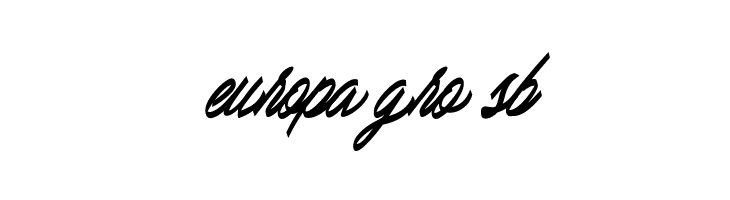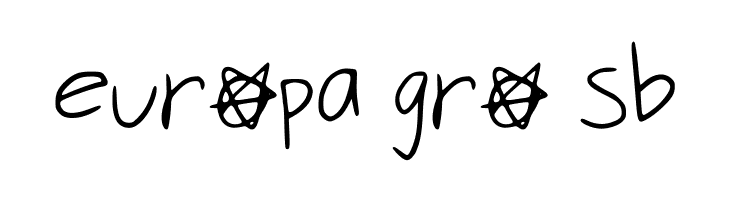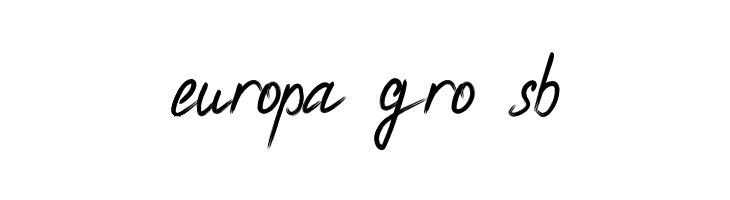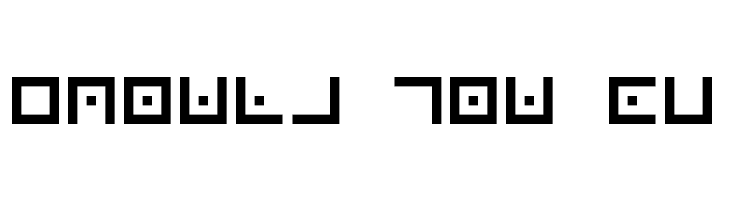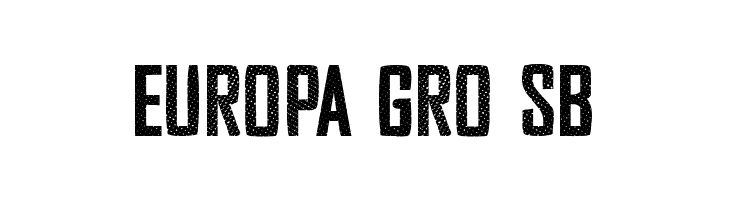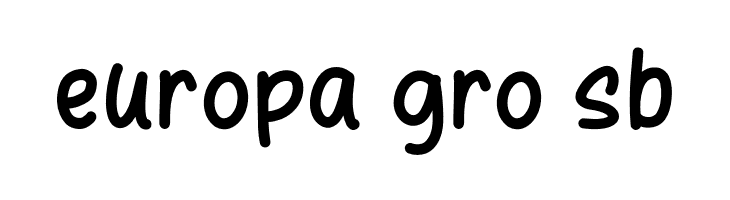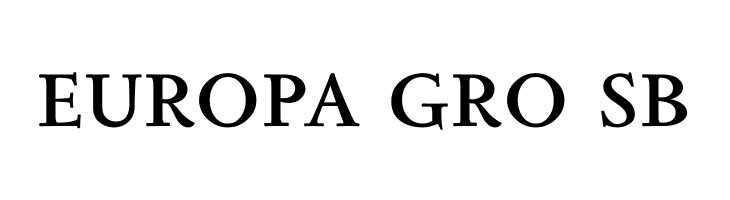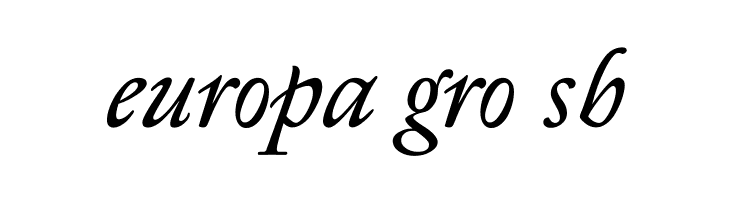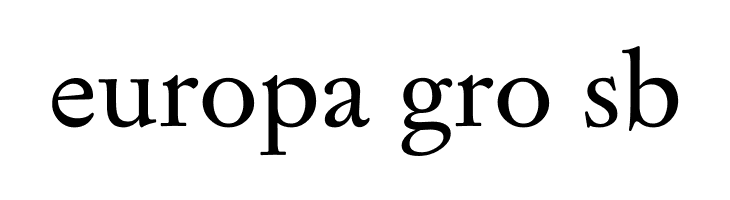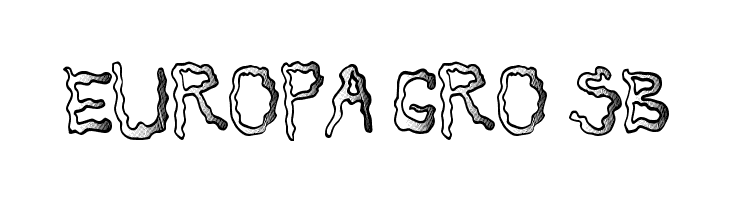
A lively and elegant script font with fluid strokes and a refined appearance.
A bold, geometric stencil font with angular, blocky letterforms.
A bold, hand-drawn font with an expressive and playful style.
A playful, organic font with fluid, rounded outlines.
A whimsical, handwritten font with a playful and casual style.
A flowing, cursive font with elegant, sweeping strokes and a handwritten appearance.
A futuristic, geometric font with angular and sharp edges.
A whimsical, hand-drawn font with wavy, textured outlines and playful character shapes.
A dynamic and expressive script font with fluid, sweeping strokes.
A modern, circular-enclosed font with high contrast and artistic flair.
A modern, geometric typeface with clean lines and bold characters.
A modern, sleek font with clean lines and a geometric structure.
A geometric, blocky font with a futuristic and digital aesthetic.
A futuristic, geometric font with bold, angular shapes.
A bold, modern sans-serif typeface with strong, uniform strokes.
A modern, italicized font with clean lines and balanced proportions.
A bold and impactful typeface with a modern, clean design.
A modern, italic sans-serif font with clean lines and a slightly condensed form.
A modern sans-serif font with a clean, professional appearance and slightly condensed structure.
A playful, eclectic font with a cut-and-paste, ransom note style.
A modern, bold sans-serif typeface with a clean and uniform design.
A bold, textured font with a gritty, industrial style.
A playful, handwritten font with irregular strokes and a casual style.
Cartoon people form each character in a security-themed, illustrative display font.
A classic serif font with elegant lines and a sophisticated appearance.
An elegant italic typeface with smooth curves and a refined, sophisticated style.
A classic serif font with elegant curves and a strong, traditional presence.
A playful, bold handwritten font with rounded edges and a casual style.